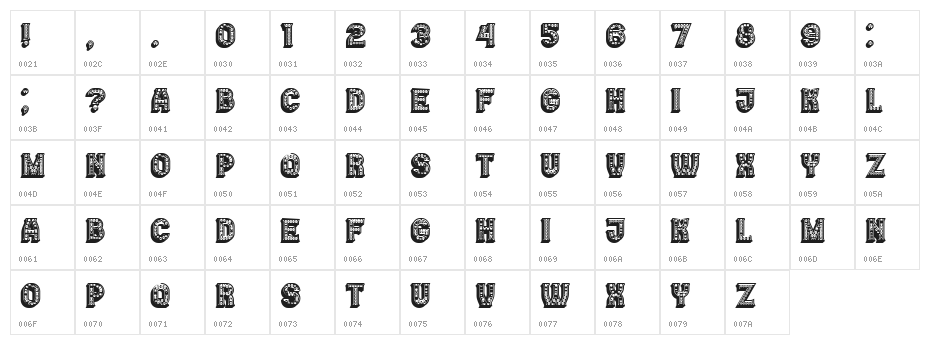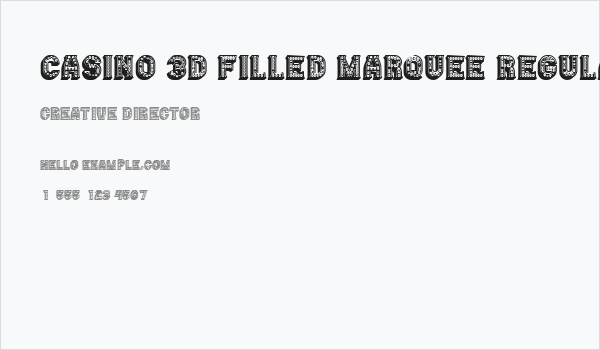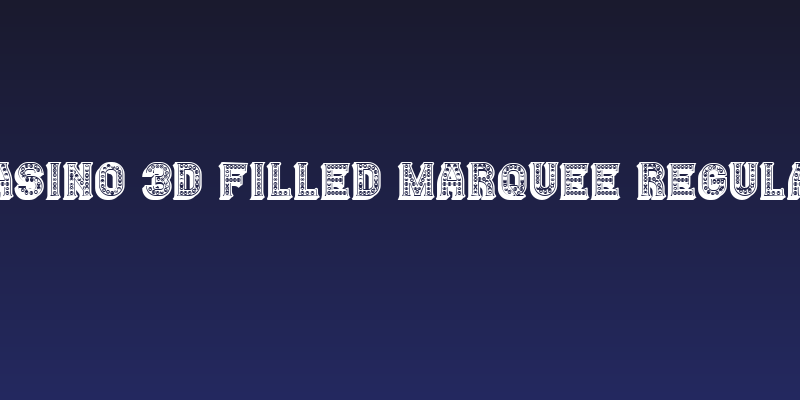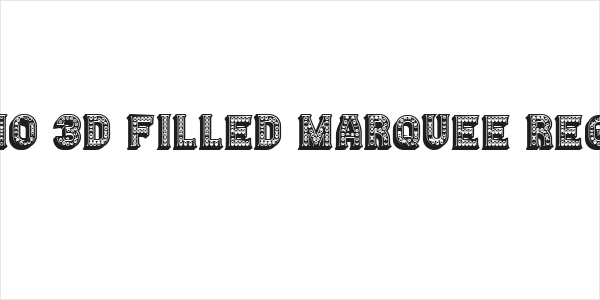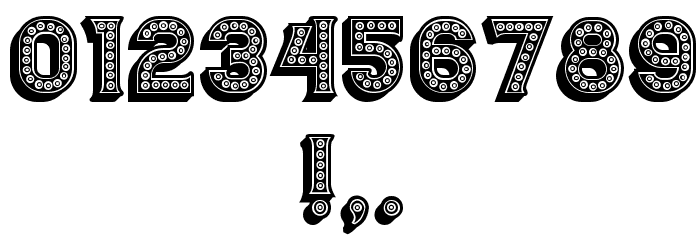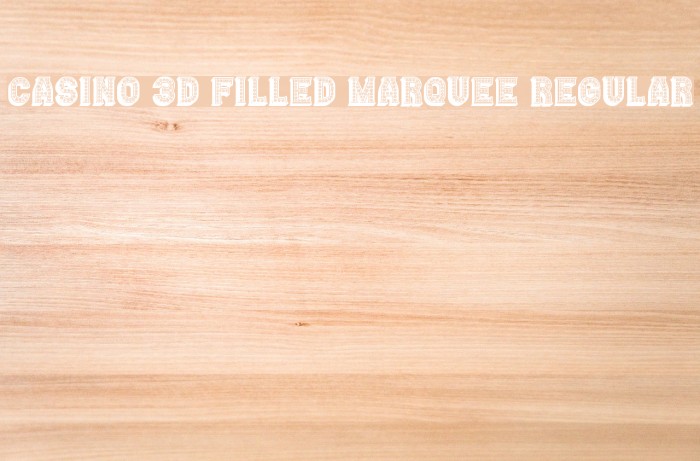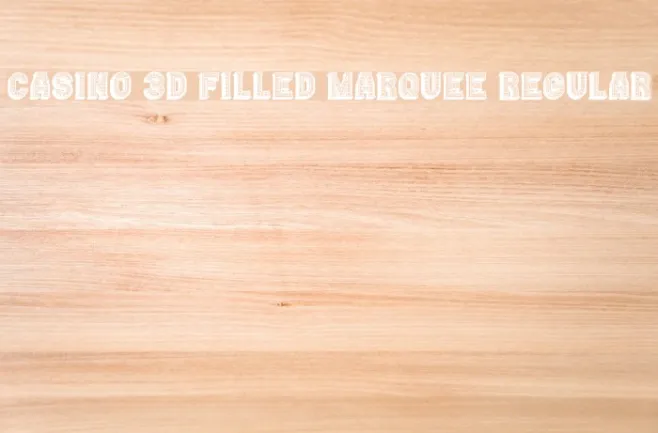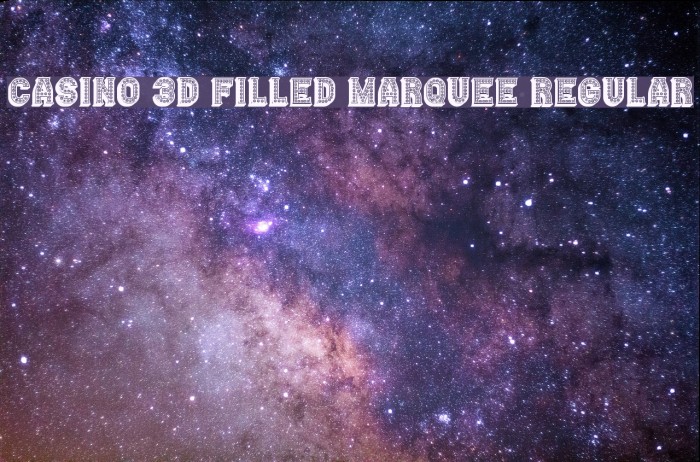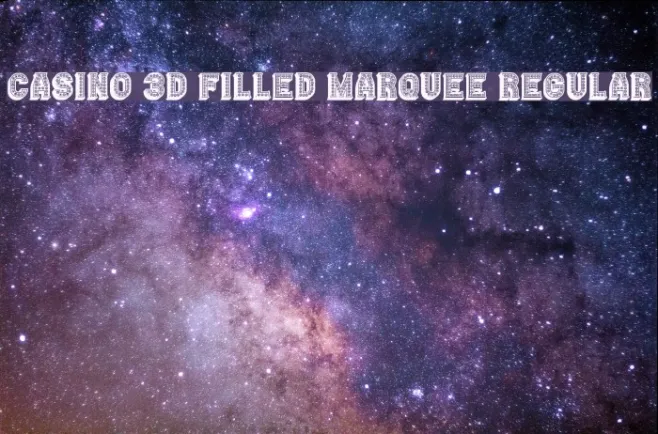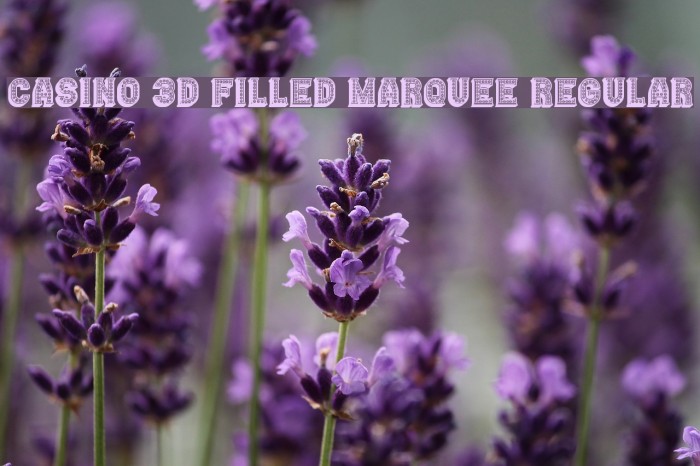
Casino 3D Filled Marquee Regular Font
Casino 3D Filled Marquee Regular Description
This font features a bold, decorative style with a 3D effect that gives it a filled, marquee-like appearance. Each character is adorned with circular embellishments that mimic the look of light bulbs, reminiscent of classic casino signage. The font has a playful and eye-catching design, making it ideal for projects that require a vibrant and lively aesthetic. The uppercase letters are particularly striking, with their intricate detailing and shadow effects that add depth and dimension. The numbers and special characters maintain the same design consistency, ensuring a cohesive look across all text elements.
| Use Case | Headlines, Logos, Signage |
| Proposed Projects | Perfect for casino-themed events, retro posters, signage, and any project needing a bold, eye-catching typeface. |